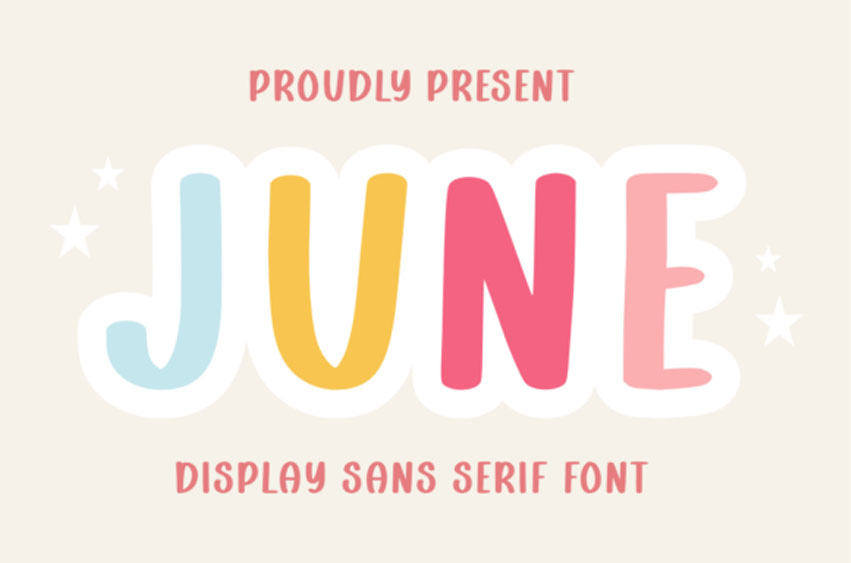
June Font is a fun cute handwritten sans serif font.
A font suitable for memos, journals, notes, planners, interior KDPs, cards, teacher, greeting card, invitations, scrapbooks, paper, diary, printable, note, low content, daily planner, notepad, calendar, to-do list, sheets, workbook, monthly planner, journal template, weekly planner, notebook paper, paper sheets, daily planner journal, kdp interior, kdp template.